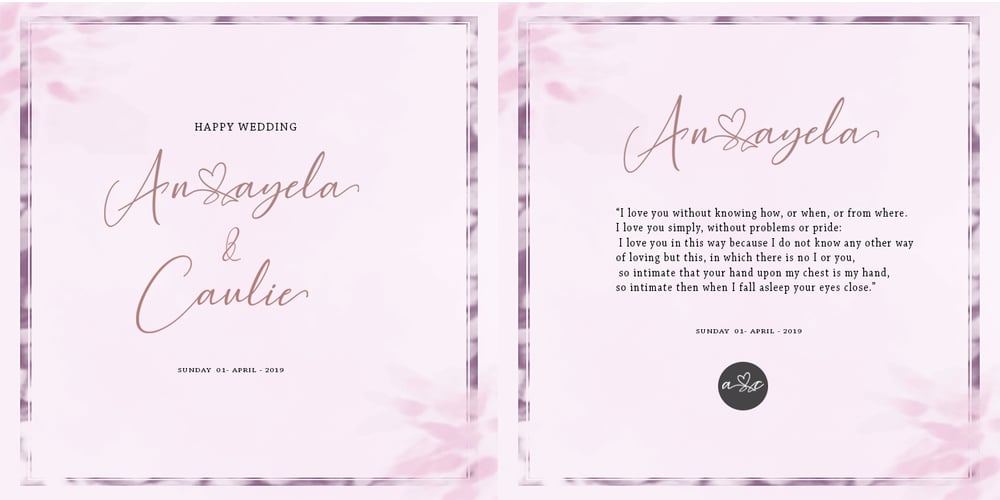
Hearth Stone
Hearth Stone font
Hearth Stone Font Family was designed by Munawir and published by Mightype. Hearth Stone contains 1 styles and family package options. Hearth Stone Script is a modern calligraphy font with the current handwriting style, this font is perfect for branding, wedding invites, magazines, mugs, business cards, quotes, posters, and more, you can try first if you want to buy this font. Hearth Stone Script is equipped with 309 glyphs. With so many glyphs, you can choose the letters according to your liking. There are many variations and options for each letter, so you can customize based on your design needs. This font contains: Hearth Stone Script OTF If you have any question, do not hesitate to contact me by email: mightype89@gmail.com